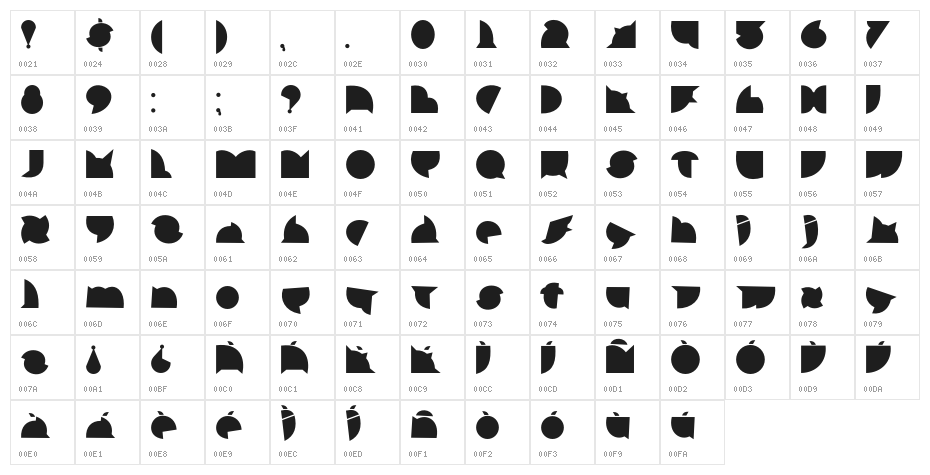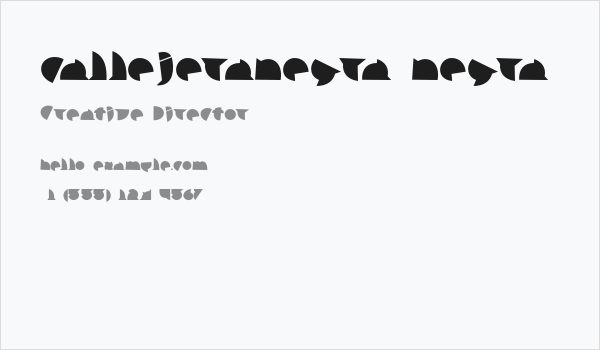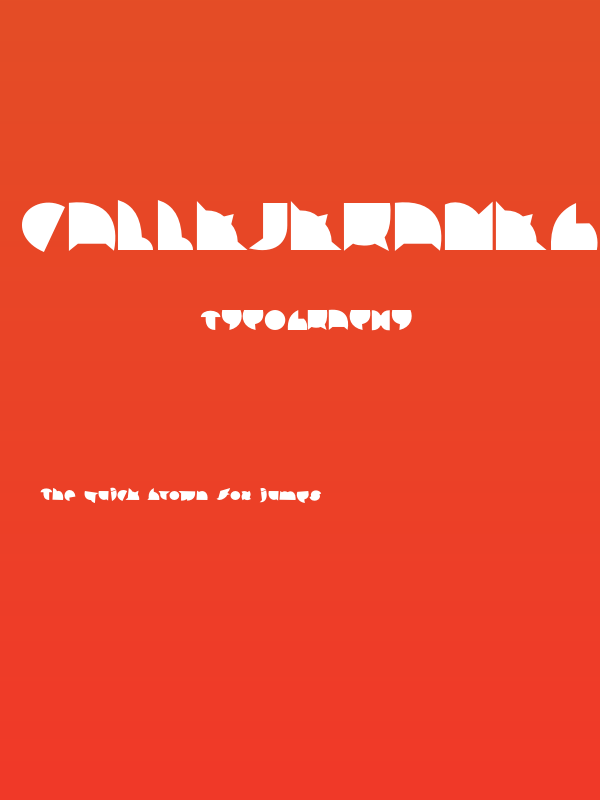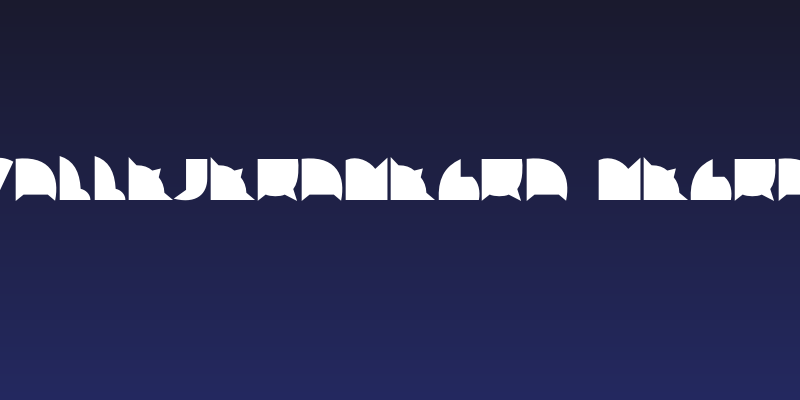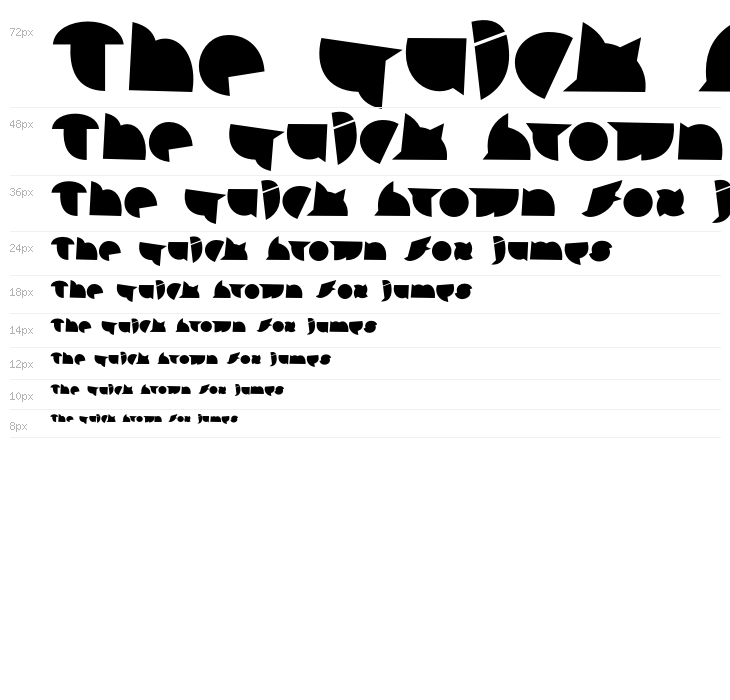
callejeranegra-negra Font
callejeranegra-negra Description
This font features a bold and geometric design with a distinctively modern and abstract appearance. Each character is constructed from solid, block-like shapes, creating a sense of weight and presence. The letters are highly stylized, with sharp angles and curves that give them a unique, artistic flair. The font's design is reminiscent of stencil or cut-out styles, making it stand out with its dramatic and unconventional forms. The uppercase and lowercase letters maintain a consistent style, while the numbers and special characters follow the same bold and geometric theme. This font is ideal for projects that require a strong visual impact and a contemporary, edgy aesthetic.
| Proposed Projects | Ideal for posters, album covers, branding, and any project needing a strong visual impact. |